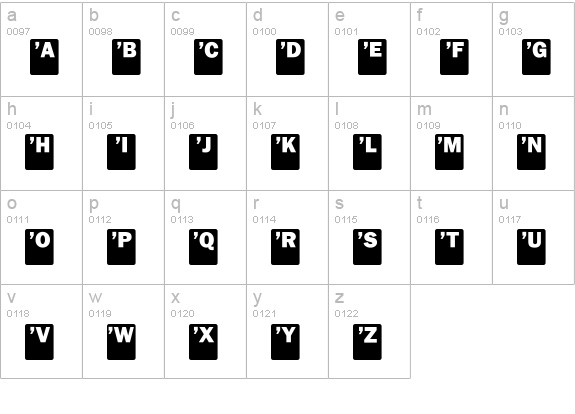
DropCaps Sans is a modern and elegant typeface that combines classic design elements with a contemporary twist. With its clean lines and balanced proportions, this font is perfect for creating eye-catching headings and titles. The unique drop caps feature adds a touch of sophistication and style to any project. What makes DropCaps Sans even more appealing is that it is free to download at FontsMarket.com. This means you can easily access and use this versatile font for all your design needs without any cost. Whether you're working on a website, branding materials, or print design, DropCaps Sans will elevate your project with its timeless appeal. Don't miss out on the opportunity to enhance your typography with DropCaps Sans. Download this stunning font for free today and elevate your design projects to the next level.